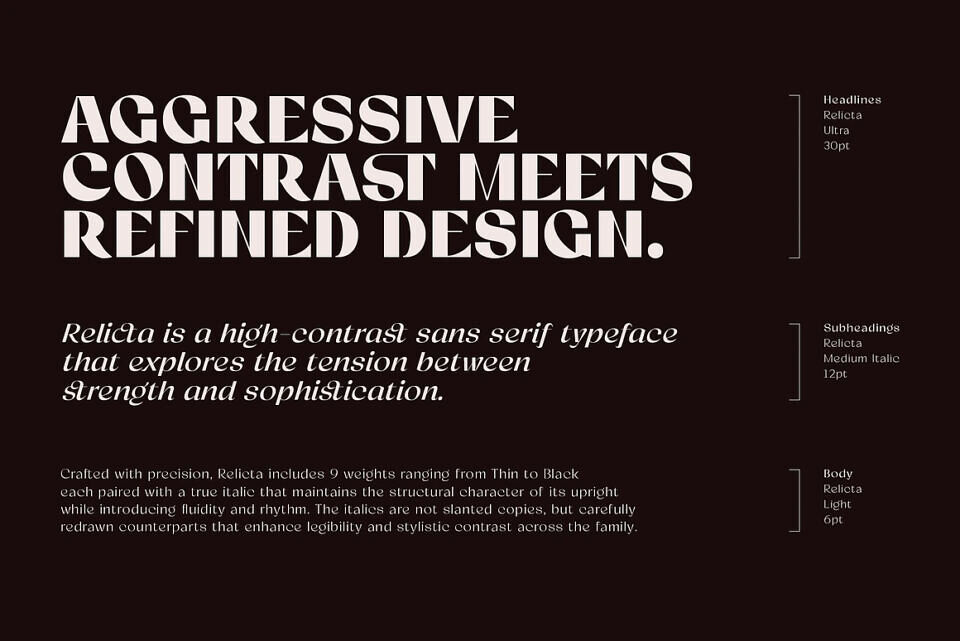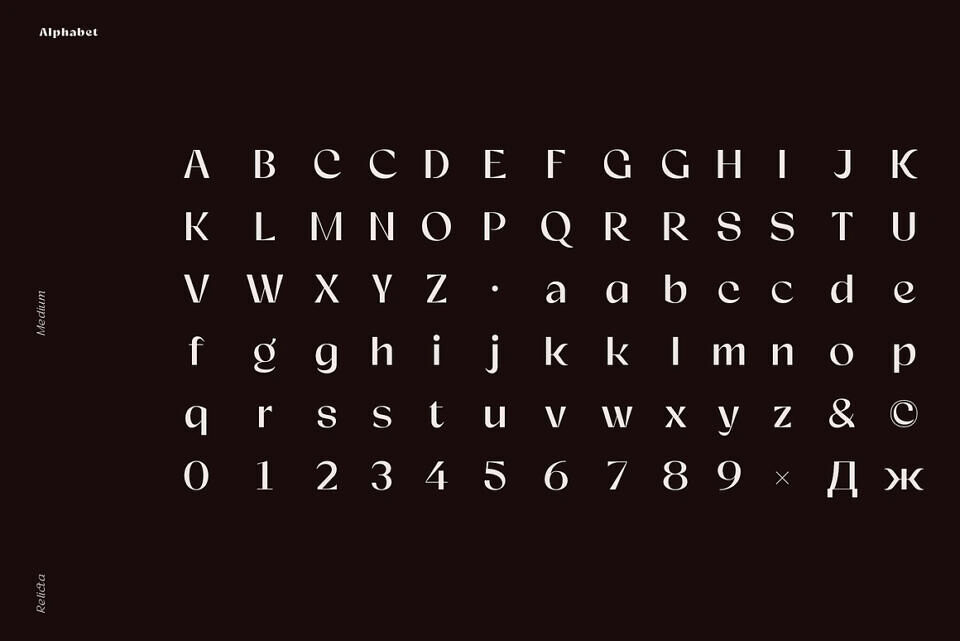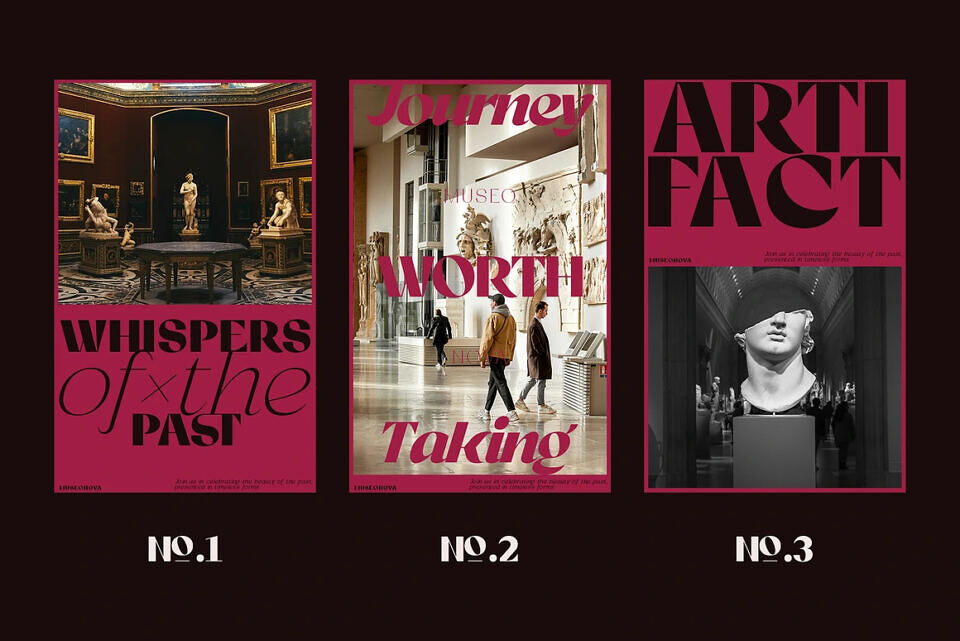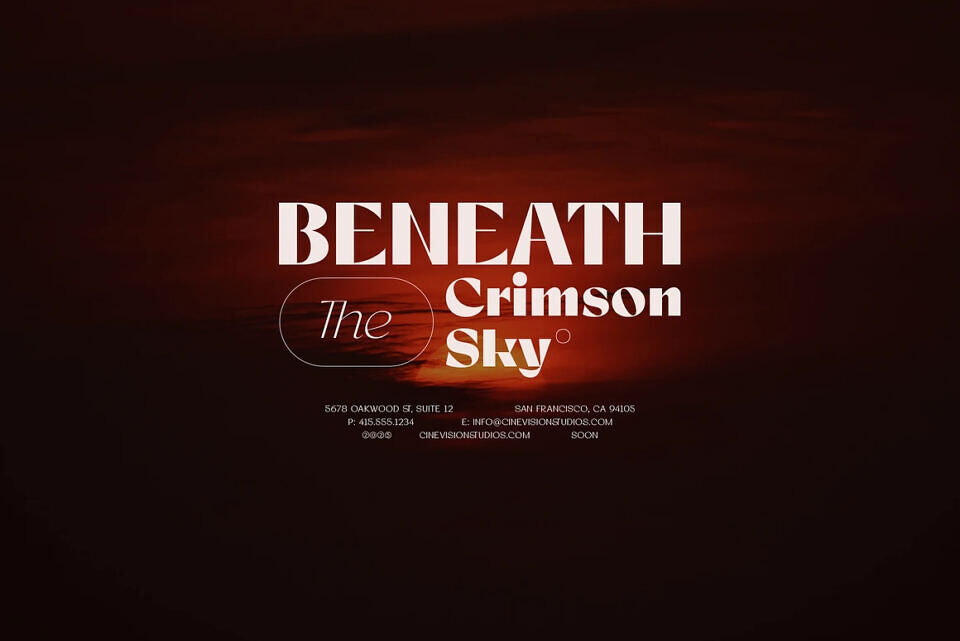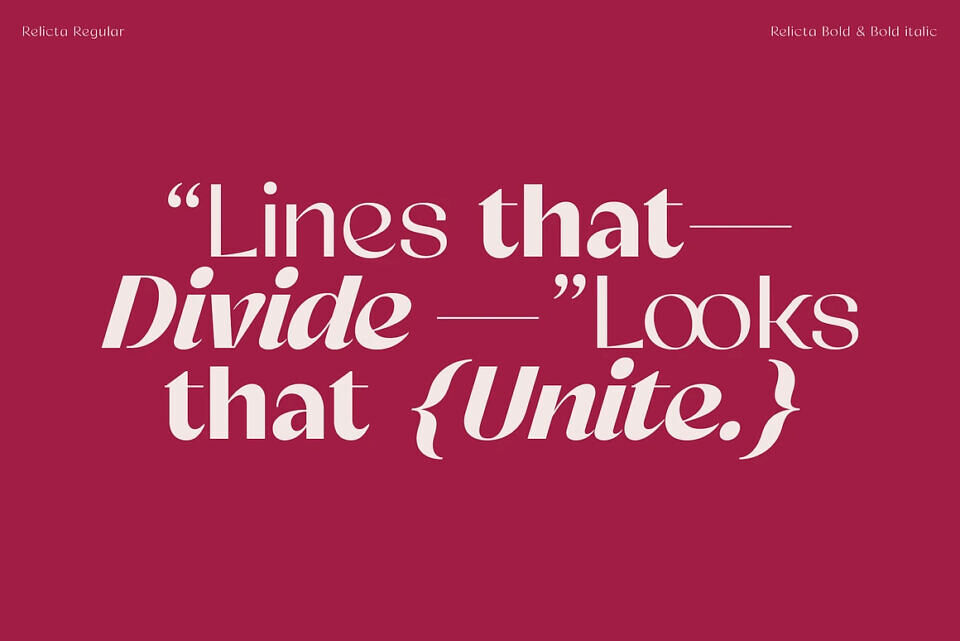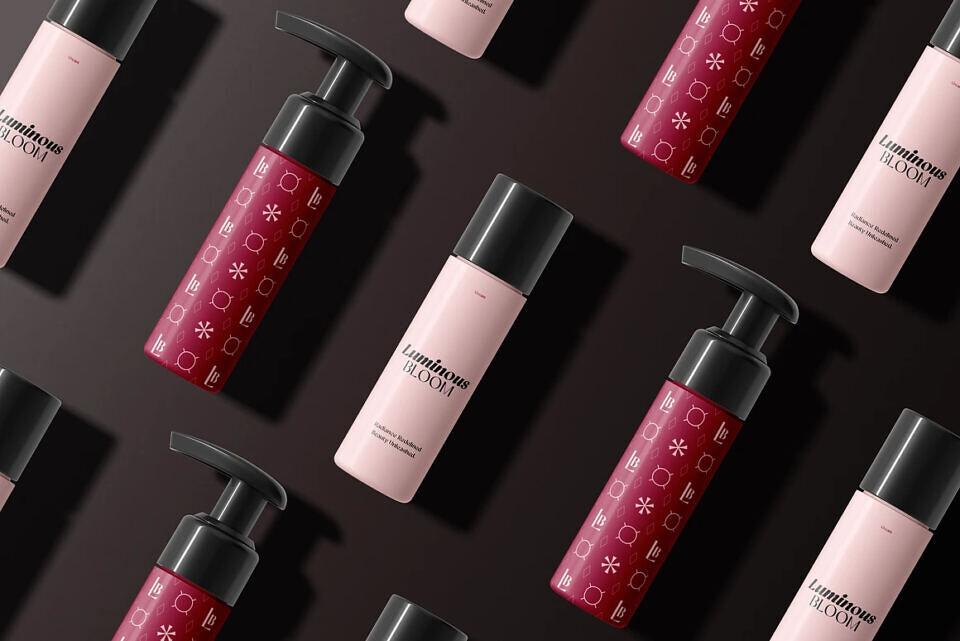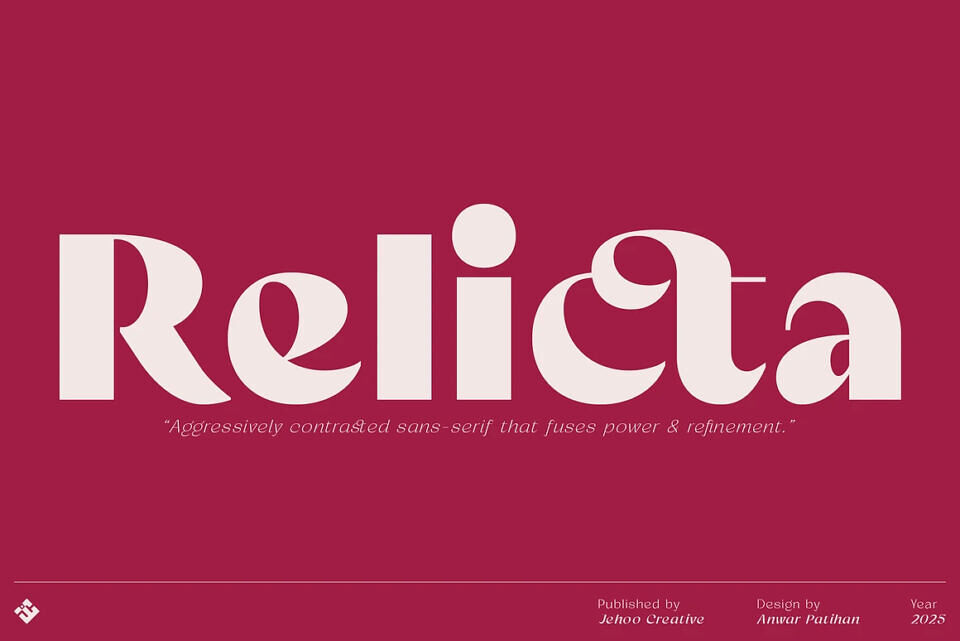
Relicta Font
Relicta is a modern sans-serif typeface defined by high contrast and commanding elegance. Its dramatic interplay of thick, forceful verticals and fine, graceful horizontals creates a striking rhythm—powerful yet captivating.
Designed with precision, the family spans 9 weights from Thin to Ultra, each accompanied by a true italic. The redrawn companions that preserve the structural integrity of the upright while introducing a dynamic flowing character.
Rooted in modernist principles, Relicta’s forms are dynamic and crisp terminals, and refined modulation lend it a distinctive presence. Its contrast makes it particularly effective at large sizes, where its flow and nuance can fully shine.